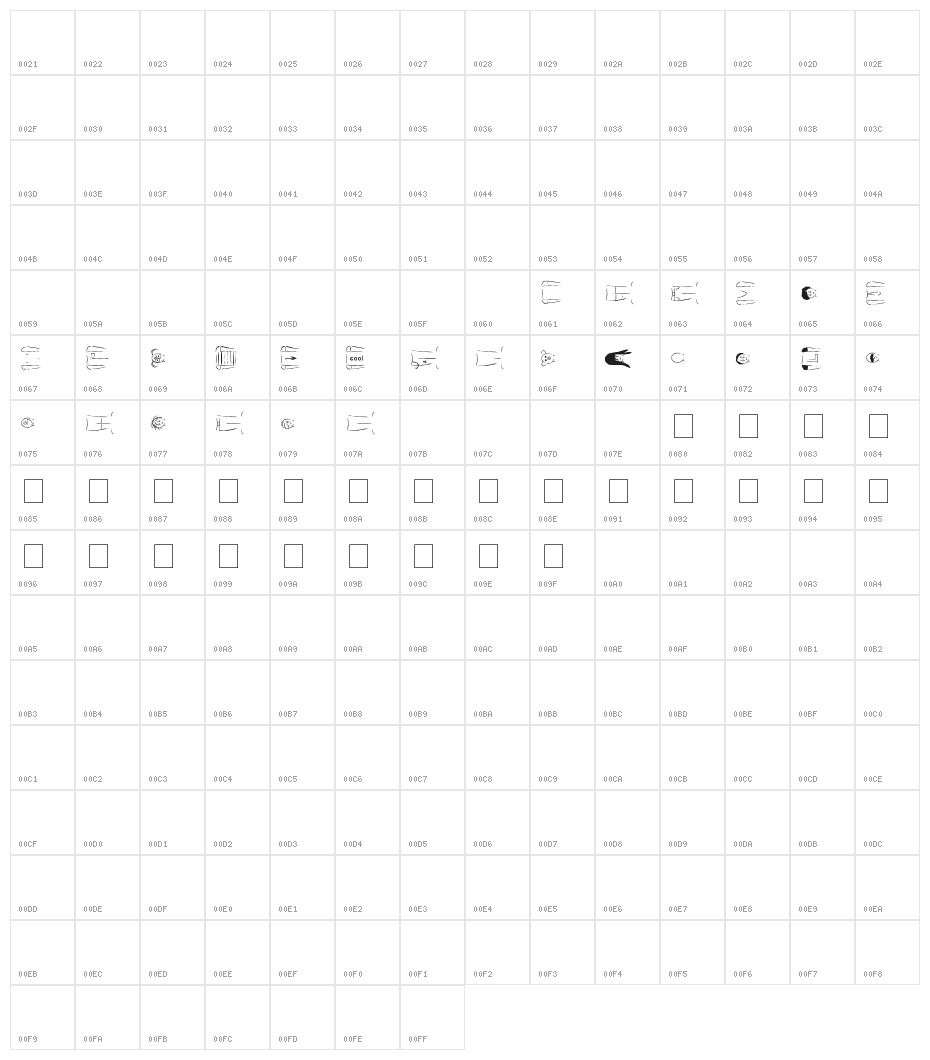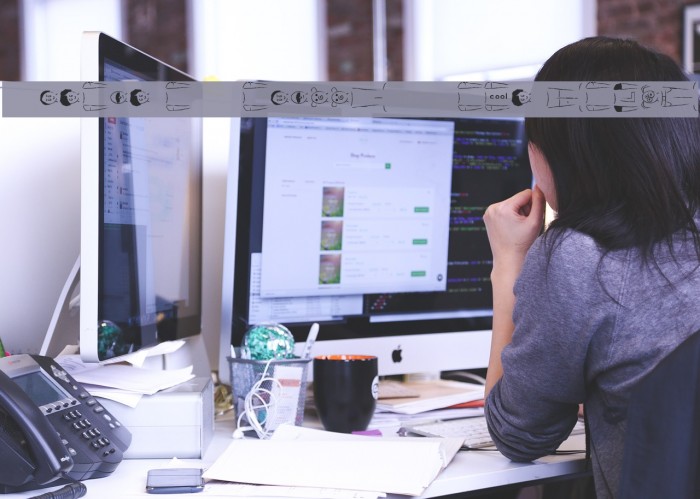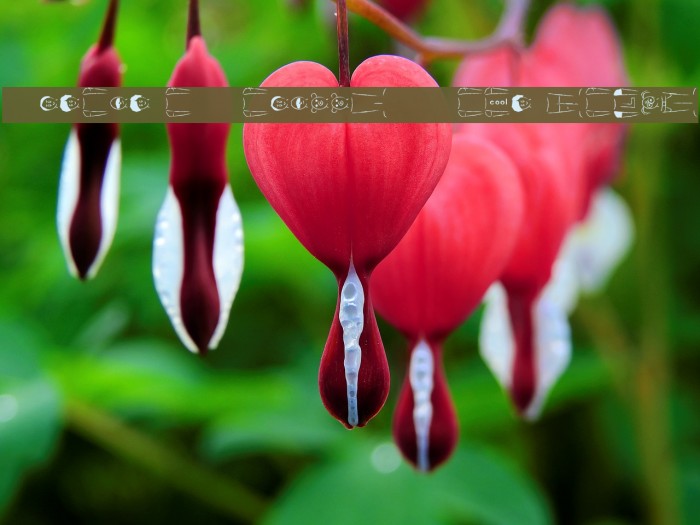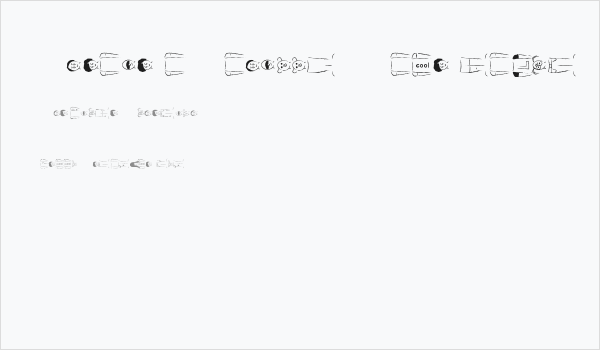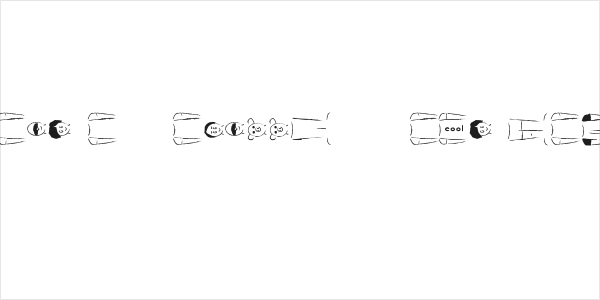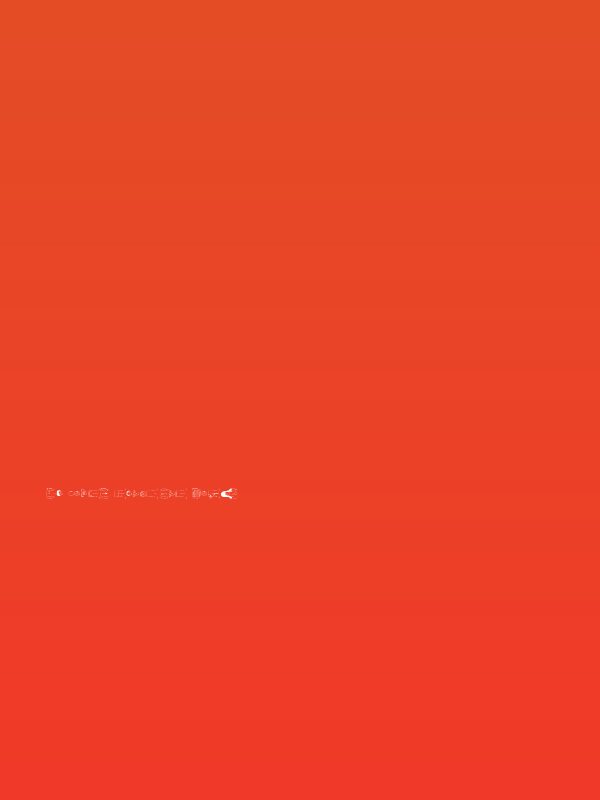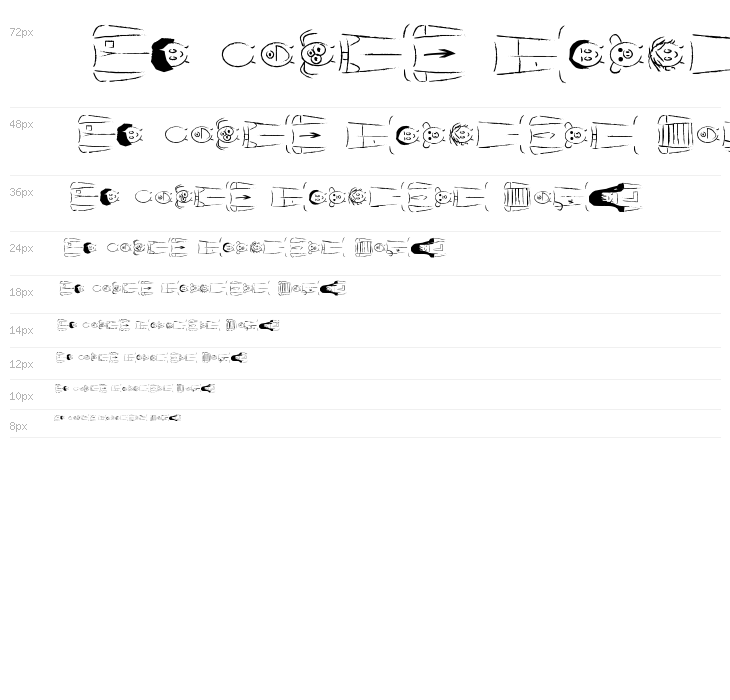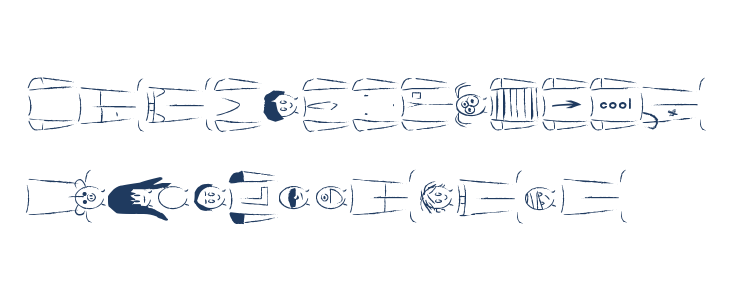
Create a Cartoon! [Male basic] Font
Create a Cartoon! [Male basic] Description
| Overall Style | Playful, Casual, Cartoonish |
| Use Case | Headlines, Logos, Decorative text |
| Proposed Projects | Children's books, comic strips, playful branding, educational materials, and informal invitations. |